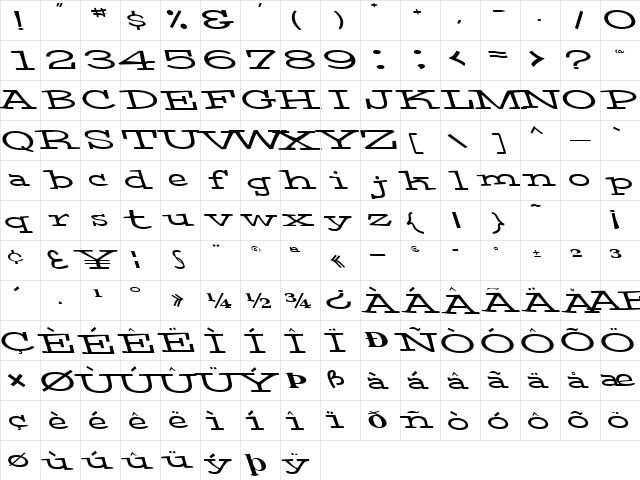
Celtic Regular
Design Context for Celtic Typeface
Celtic takes a measured approach to typography — its balanced proportions and neutral character make it a reliable workhorse for both digital and print work.
Pro Tip: Use Celtic in both headline and body roles to test its range before committing to a single application.